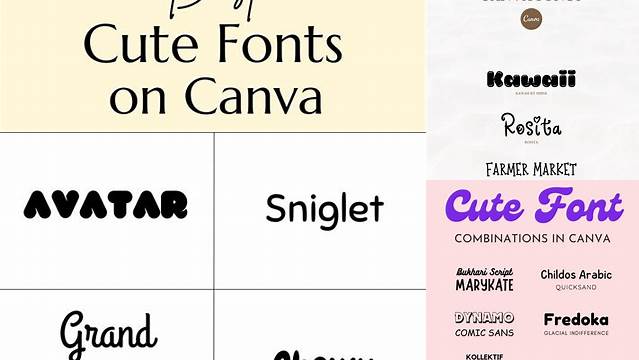
Cute Simple Fonts On Canva: Your Design Guide
Hey there, design enthusiasts! Ever wondered how to jazz up your Canva creations with fonts that are both cute and easy on the eyes? Well, you're in the right place! Today, we're diving headfirst into the world of cute simple fonts on Canva. We'll explore some of the best fonts, how to use them effectively, and even sprinkle in a few tips and tricks to make your designs pop. Buckle up, because your journey to becoming a Canva font aficionado starts now!
Choosing the Right Cute Simple Fonts on Canva
Let's be honest, guys, choosing the right font can make or break your design. It's like picking the perfect outfit – it has to match your personality, the occasion, and, of course, look good! When it comes to cute simple fonts on Canva, the options are vast, and each one has its unique charm. But how do you pick the ones that are right for you?
First, consider the mood you want to create. Are you aiming for playful and whimsical, or more clean and minimalist? For a playful vibe, you might gravitate towards fonts with rounded edges and a touch of handwritten style. Think of fonts like 'Happy Monkey' or 'Mountains of Christmas'. These are perfect for children's content, invitations, or anything that needs a dose of fun. If you're leaning towards a more clean and minimalist aesthetic, fonts like 'Poppins' or 'Open Sans' could be your go-to. These are versatile, easy to read, and work well for a wide range of designs, from presentations to social media posts.
Then, think about readability. No matter how cute a font is, if no one can read it, it's a fail. Make sure the font is legible at the size you're using it. Avoid fonts that are overly stylized or have intricate details, especially for body text. For headlines and short phrases, you can get away with more decorative fonts, but for longer passages, simplicity is key. Also, consider the context of your design. What's the purpose of your project? Is it for a professional presentation, a personal blog, or a fun social media graphic? The answer to this question will guide you to choose a font that fits your needs perfectly. For instance, a bold and playful font will look great in a social media post, but a more simple and readable font will be better for your presentation.
Finally, experiment and have fun! Canva has a massive library of fonts, so play around with different combinations and see what works best. Try pairing a cute headline font with a simple, readable body font. Don't be afraid to mix and match styles until you find the perfect match. Remember, there's no one-size-fits-all solution. The best font is the one that speaks to you and enhances your message. Let's dive into some of the best cute simple fonts on Canva and how to use them.
Top Cute Simple Fonts on Canva: A Closer Look
Alright, let's get down to the nitty-gritty and explore some of the best cute simple fonts on Canva out there. Here are a few of my favorites, along with tips on how to use them effectively:
- Happy Monkey: This font is the definition of playful! It's perfect for creating a lighthearted and fun atmosphere. Use it for headlines, titles, or short phrases in designs aimed at children or those who love a touch of whimsy. Try pairing it with a simple sans-serif font for body text to maintain readability.
- Mountains of Christmas: As you can guess, this font is perfect for festive and holiday-themed designs. It has a handwritten feel that adds a personal touch. Use it for greeting cards, holiday invitations, or seasonal social media posts. Keep in mind that this font might not be ideal for long blocks of text due to its slightly ornate style.
- Poppins: This is a versatile sans-serif font that's clean, modern, and easy to read. It's a great choice for both headlines and body text. Use it for presentations, reports, websites, and any design that requires a professional and clean look. Poppins is available in various weights and styles, so you can customize it to fit your needs.
- Open Sans: Another excellent choice for readability and versatility. This is a classic sans-serif font that works well in almost any design context. Use it for blogs, articles, presentations, or anything else where clear and concise text is essential. Open Sans is also a great option when you need to translate text into different languages.
- Amatic SC: A handwritten sans-serif font that's perfect for a friendly and informal feel. Use it for quotes, short captions, or any text where you want to add a personal touch. Amatic SC is a great choice for social media posts, posters, or anything that needs to look approachable.
These are just a few examples, and there are plenty of other great cute simple fonts on Canva to discover. The key is to experiment and find fonts that match your design style and the message you want to convey.
Pairing Fonts for Maximum Impact
Alright, we've talked about choosing individual fonts, but what about combining them? Pairing fonts is an art form, guys, and when done right, it can elevate your designs to a whole new level. The goal is to create visual harmony while still maintaining contrast and interest. Let's explore some tips for pairing fonts like a pro.
- Contrast is Key: The most successful font pairings often involve contrasting styles. For example, pair a bold, playful headline font with a clean, simple body font. This creates visual interest and makes your text easier to read. Don't be afraid to experiment with different weights and styles of the same font family to achieve contrast.
- Font Websites: Websites like Google Fonts and Font Squirrel offer a wide selection of free fonts that you can use in your Canva designs. These websites also provide information about each font's characteristics and best uses.